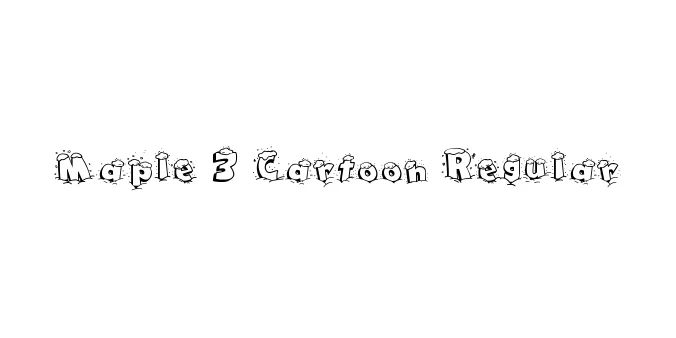
Maple 3 Cartoon Regular
Designed by Eric Olson
Maple 3 Cartoon Regular is a whimsical and energetic display typeface designed to capture the playful spirit of mid-century animation and modern comic aesthetics. Its bold, rounded forms and slight irregularities give it a handcrafted feel that resonates with both children and adults. The font's thick strokes and generous counters ensure high visibility, making it an excellent choice for headers and eye-catching titles across various digital and print media platforms.
Developed as a more informal and character-driven extension of the Maple font family, this cartoon iteration prioritizes personality over formal structure. It features a unique rhythm created by its varied character widths and a bouncy baseline, which helps prevent a monotonous look in graphic-heavy designs. Whether used for commercial branding or personal creative projects, it provides a friendly and approachable atmosphere that is hard to replicate with standard sans-serif fonts.
Maple 3 Cartoon Regular Best Uses
Ideal for toy companies, candy shops, and children-oriented identity systems.
Perfect for headlines in comic books, school newsletters, and magazine spreads.
Great for creating engaging and fun YouTube thumbnails or Instagram story graphics.
Works exceptionally well for t-shirt slogans and kid-centric clothing prints.